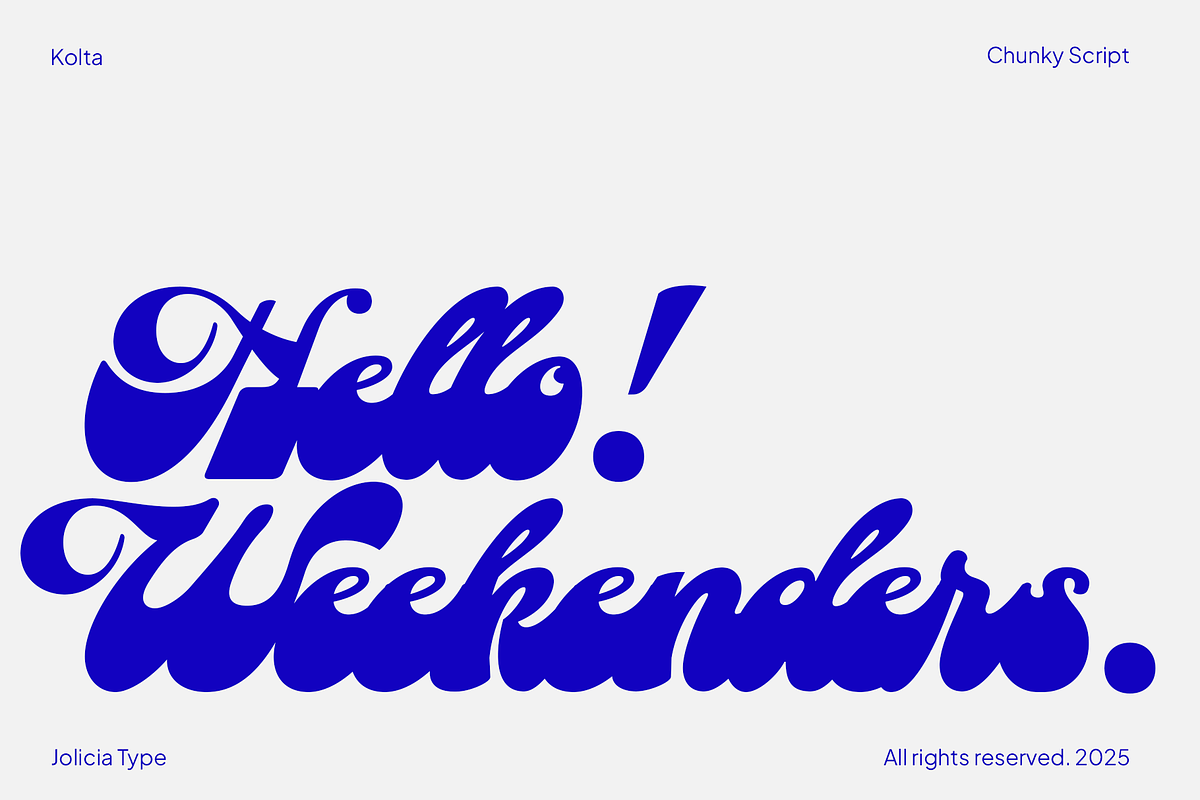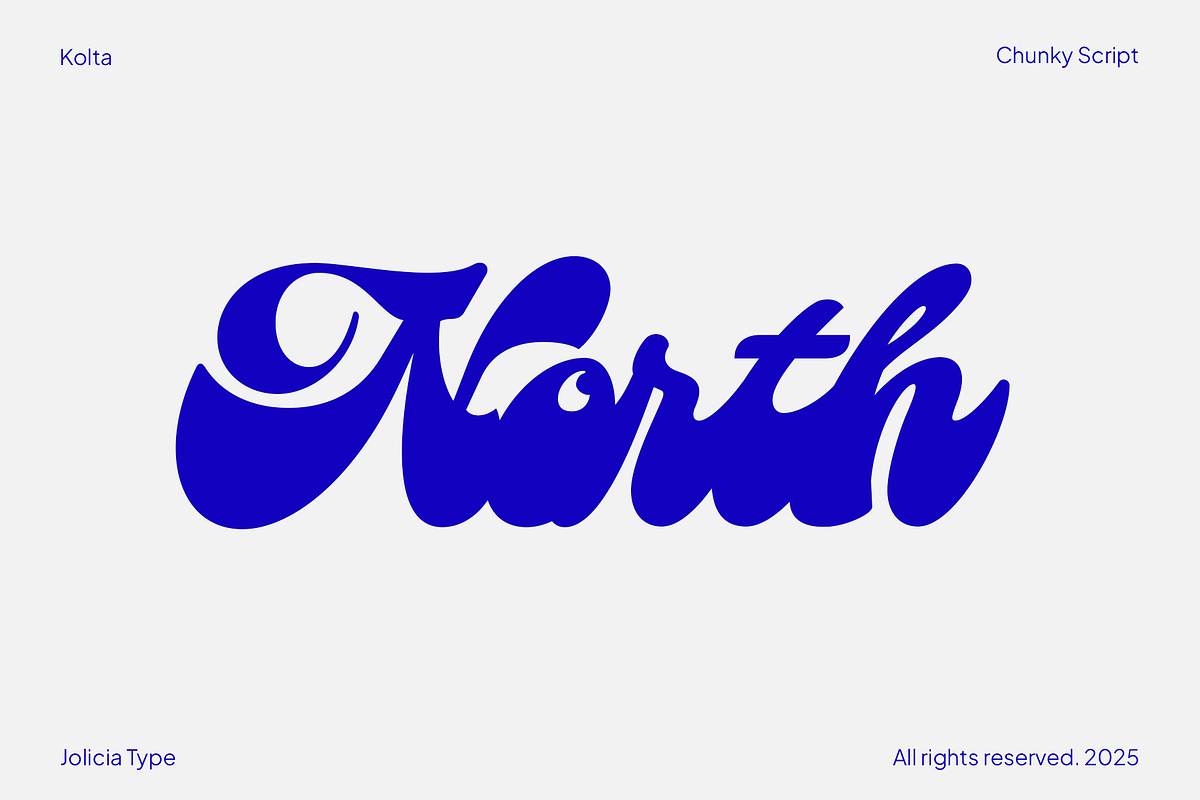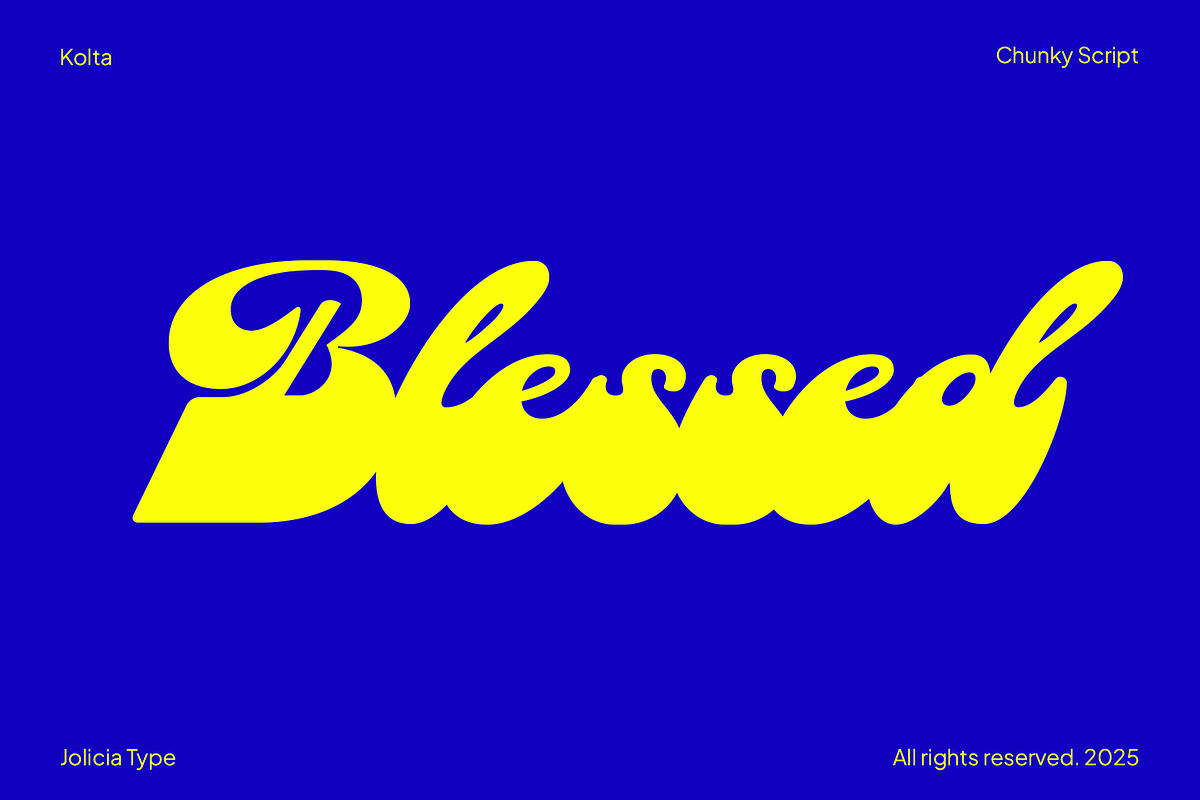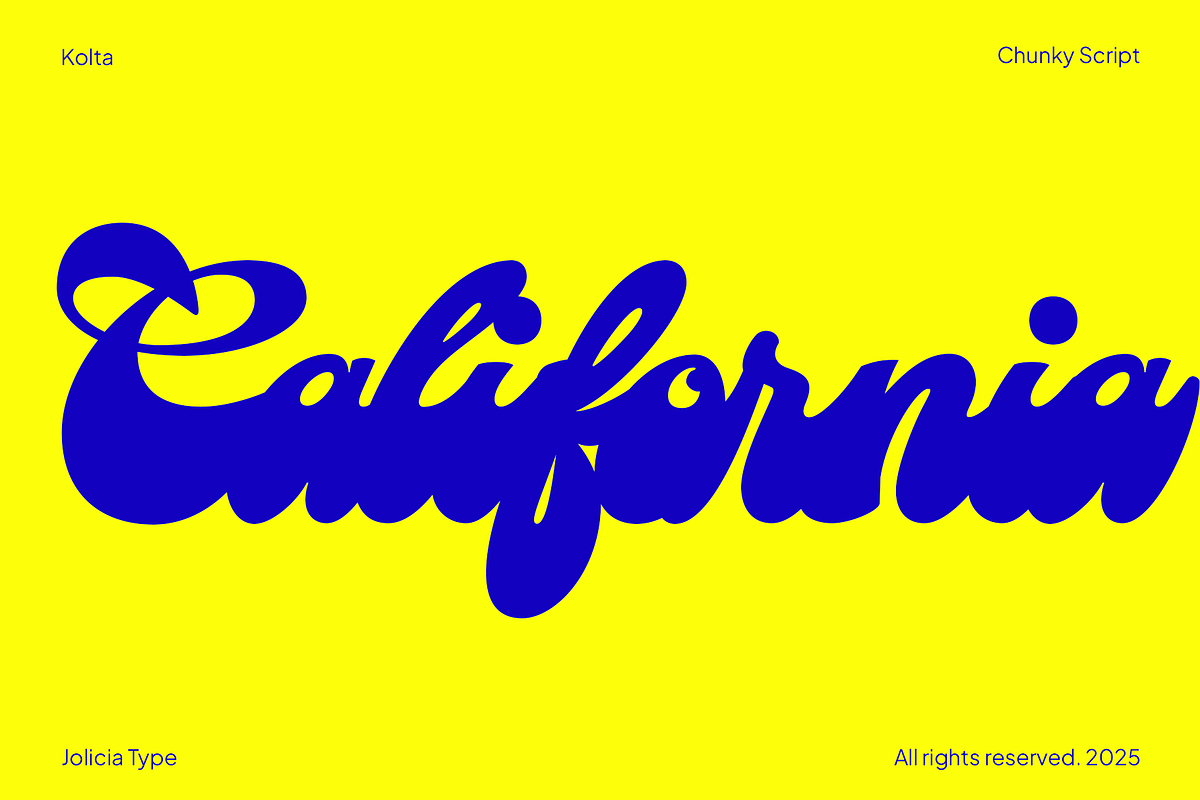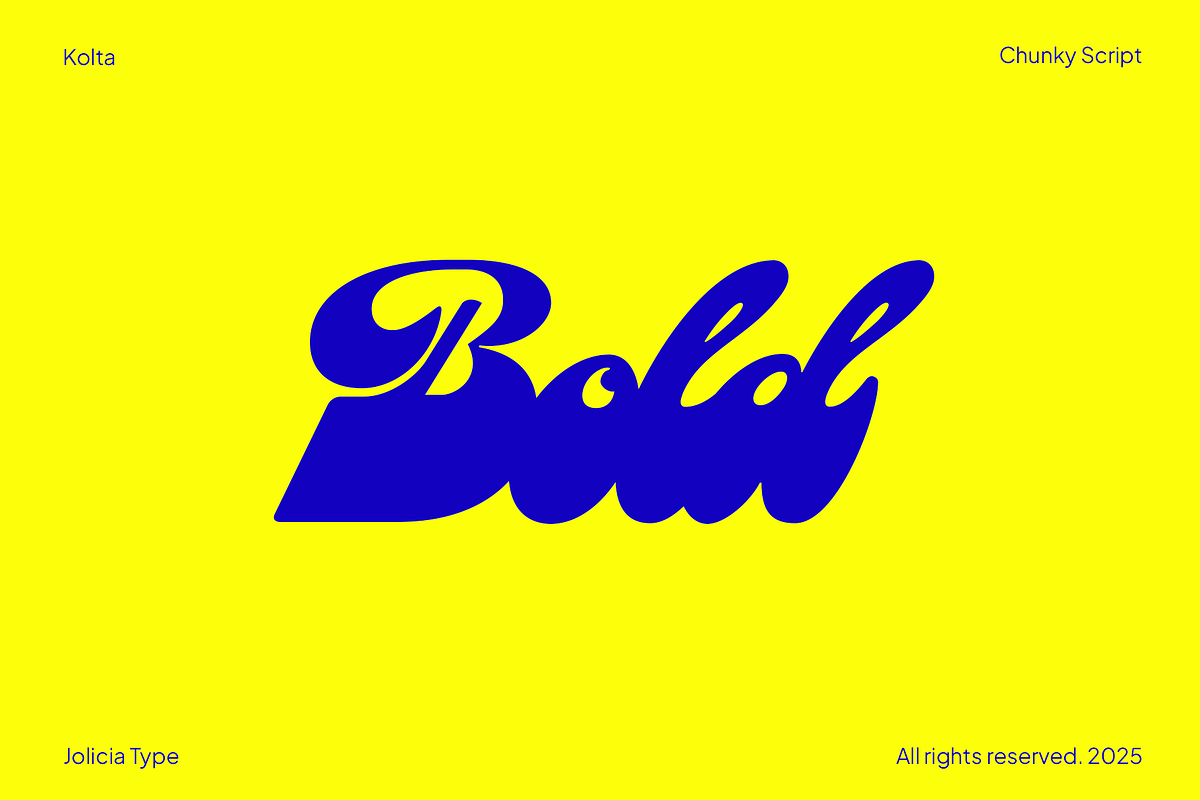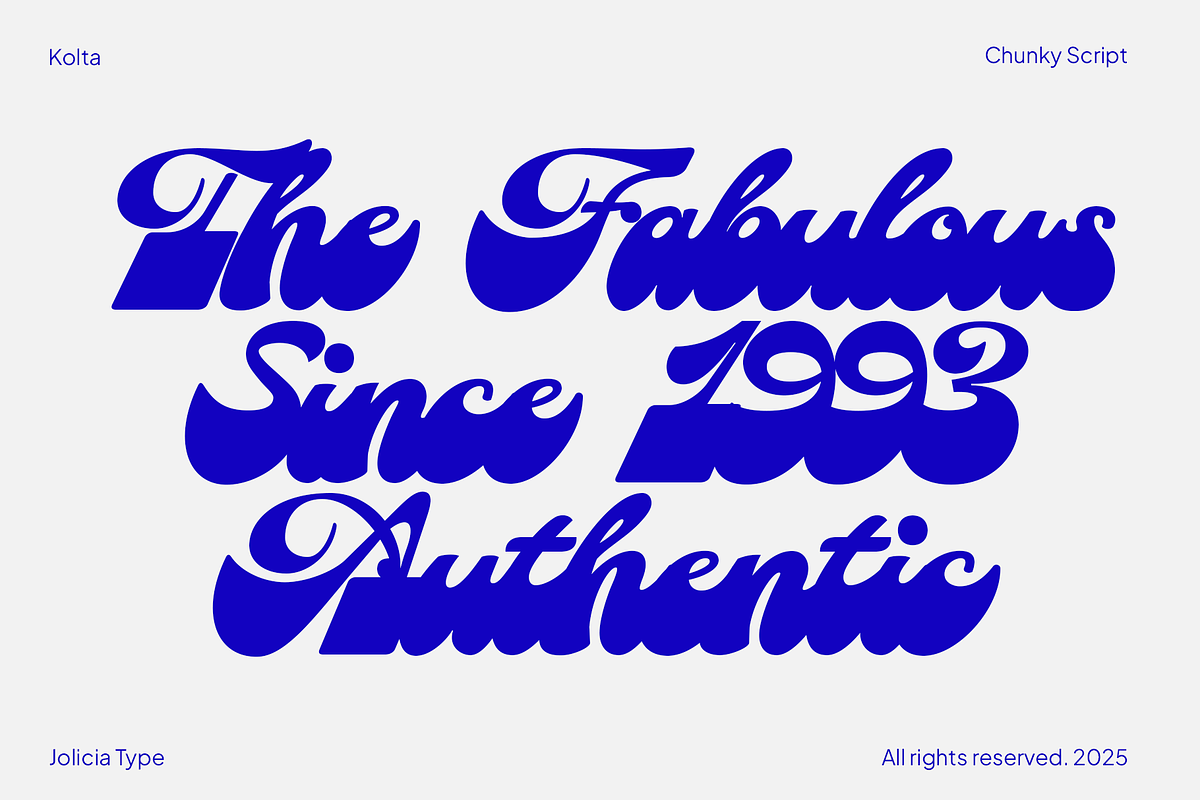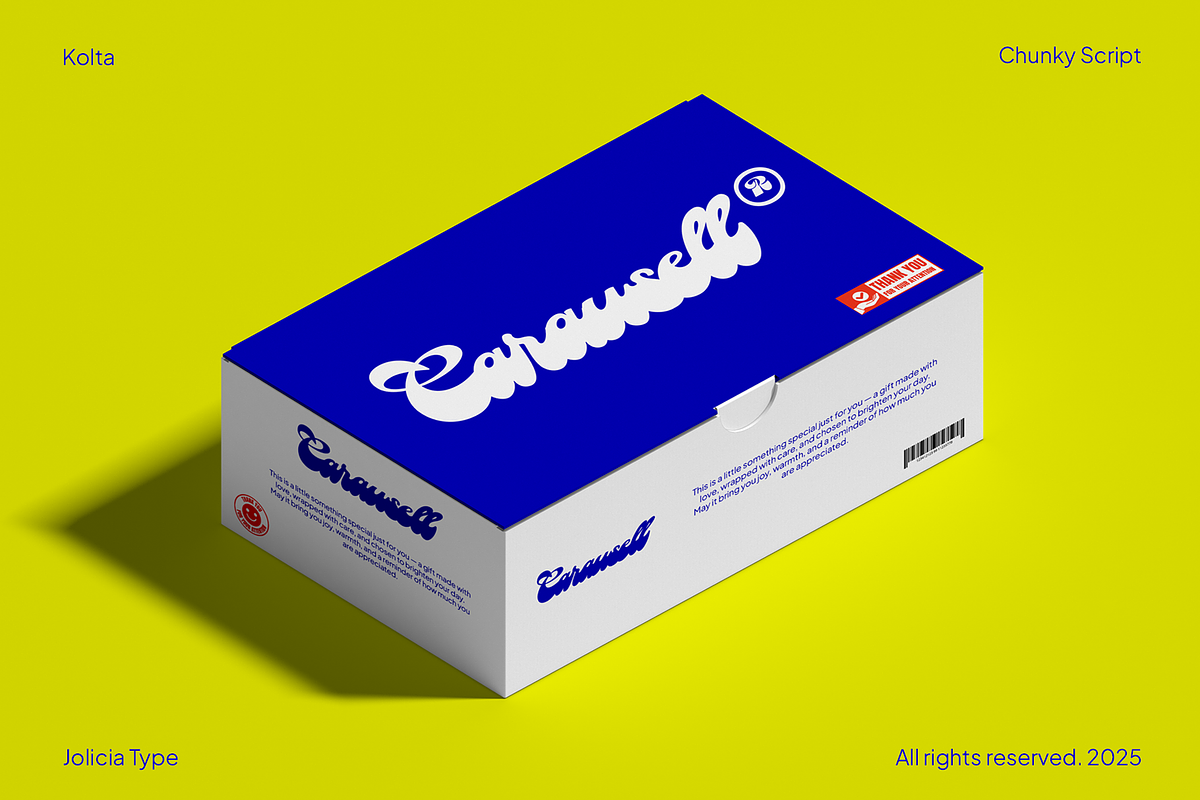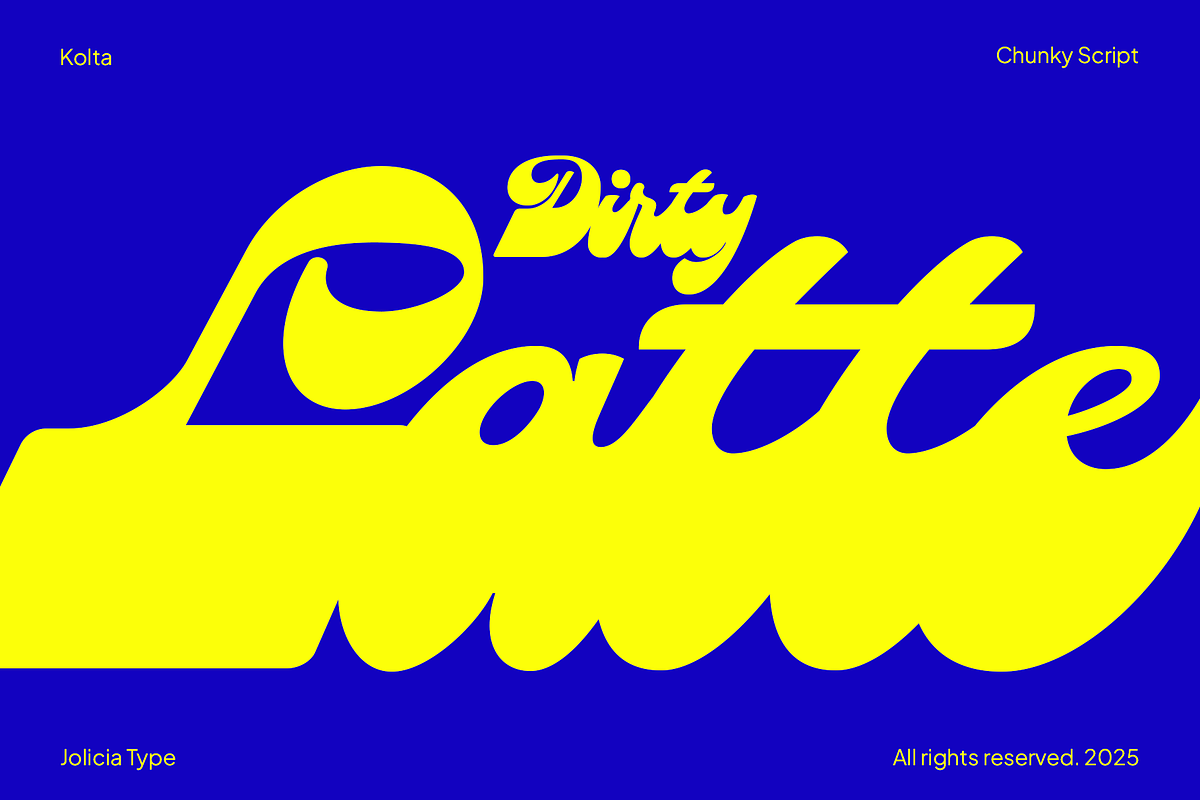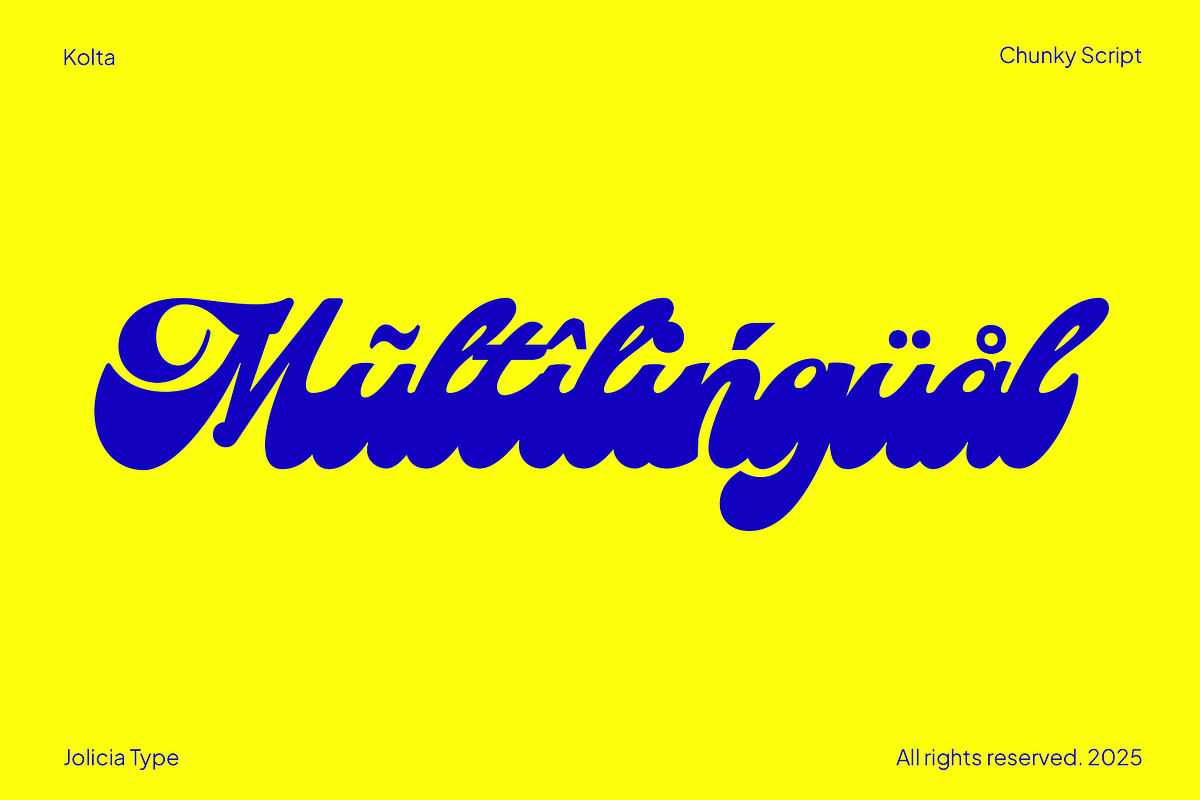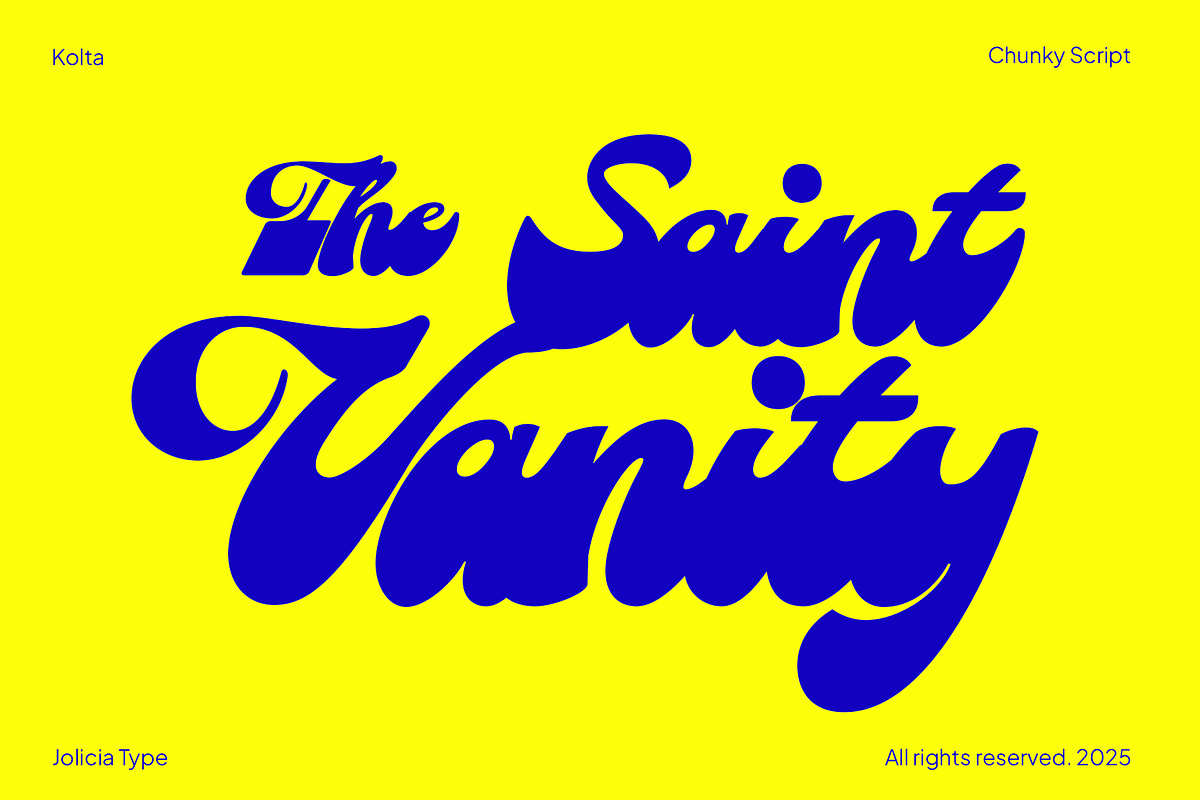
Kolta | Bold Chunky Script
Introducing: Kolta – a bold chunky script font that’s fun, groovy, and trendy. Kolta is designed to bring energy, warmth, and confidence into your design. With thick strokes, playful curves, and its signature “bottom-heavy” style where the lower parts of the letters appear bolder, this font stands out with both strength and charm. Each character is crafted to create a powerful visual impact while still feeling friendly and approachable.
Kolta is perfect for a wide range of creative projects: bold branding logos, retro-modern product packaging, eye-catching music or festival posters, or even social media content that needs a catchy typographic style. Its chunky strokes and dynamic flow make Kolta the ideal choice to grab attention and give your design a unique personality. If you’re looking for a script font that’s more than just bold one that delivers a fun, groovy, and trendy vibe Kolta is your answer. Let every word you type come alive, expressive, and truly unforgettable.
- A total of 372 glyphs with rich alternate characters.
- Supports 90 international languages.
- Bold script design with a unique bottom-heavy character style.